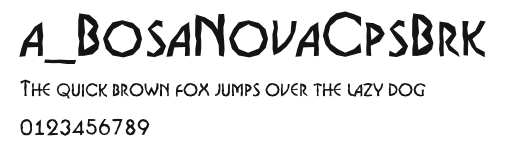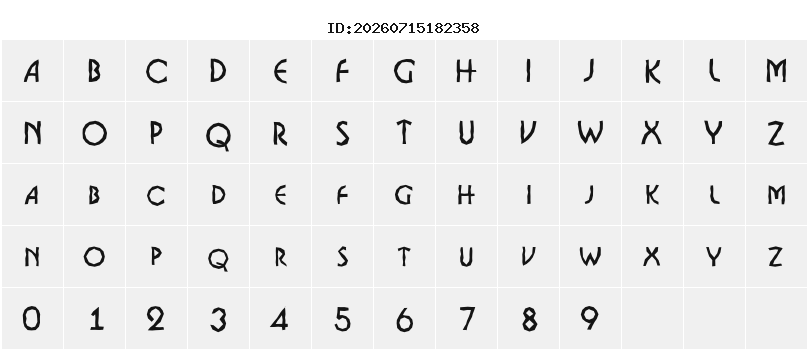
• Font Name: a_BosaNovaCpsBrk
• Full Font Name: a_BosaNovaCpsBrk
About a_BosaNovaCpsBrk.ttf
a_BosaNovaCpsBrk.ttf is a modern, elegant sans-serif font designed for ultimate readability and visual harmony. Perfect for branding, headlines, web design, and print materials.